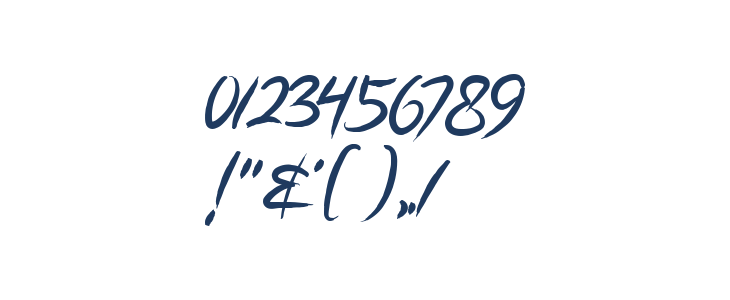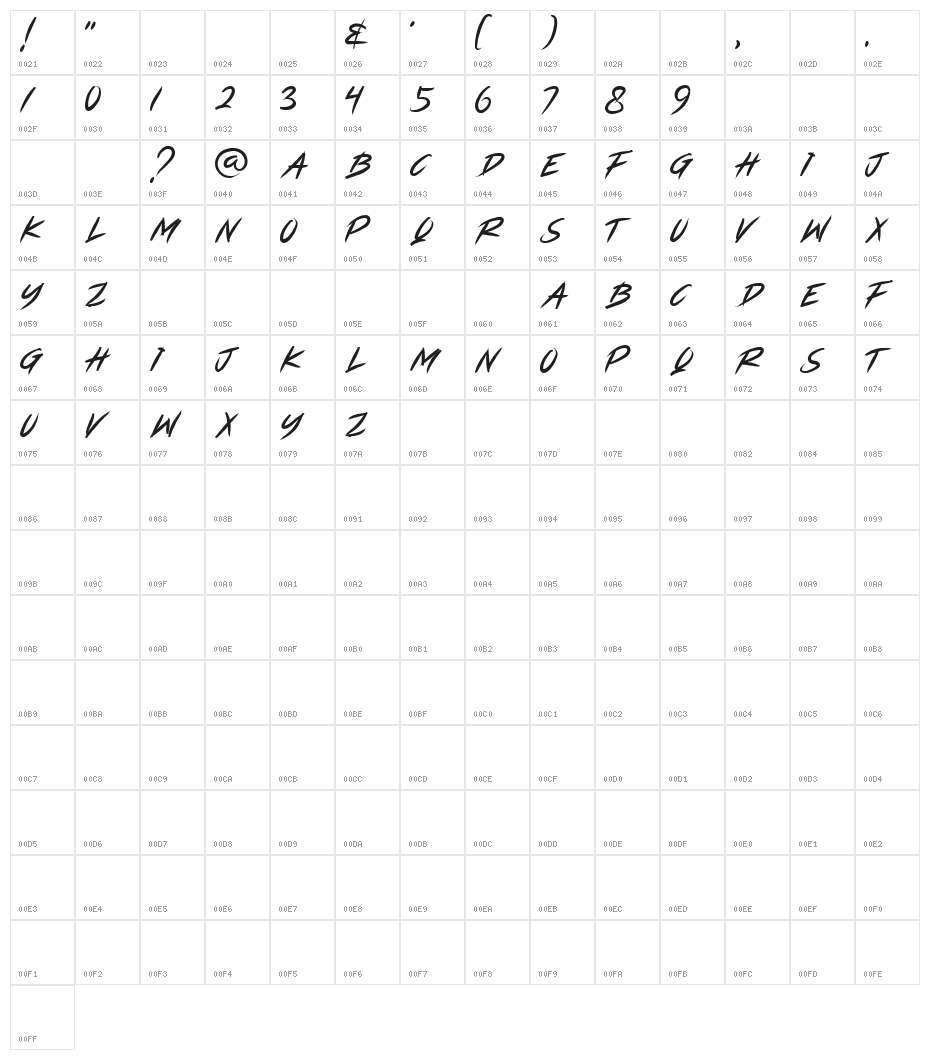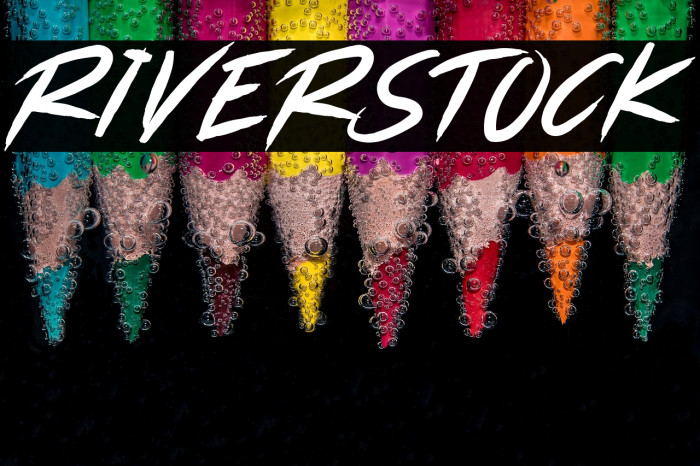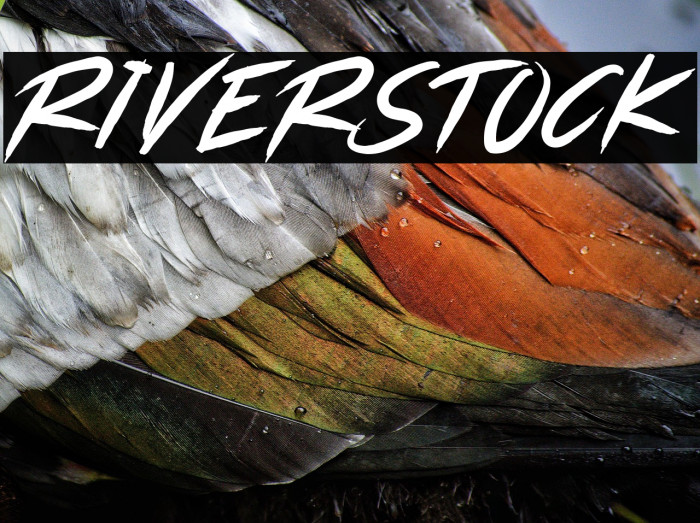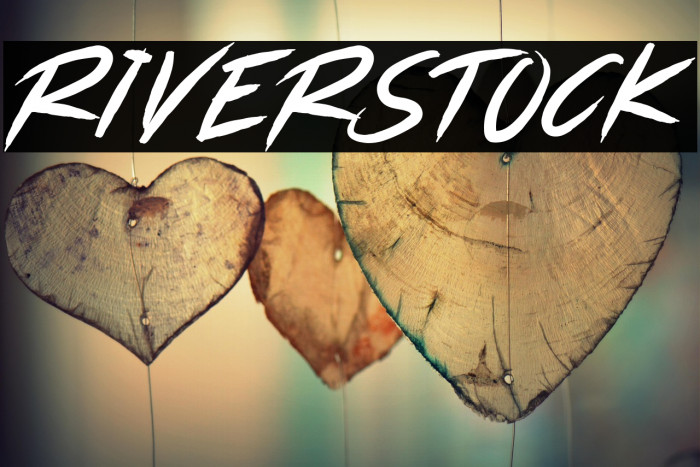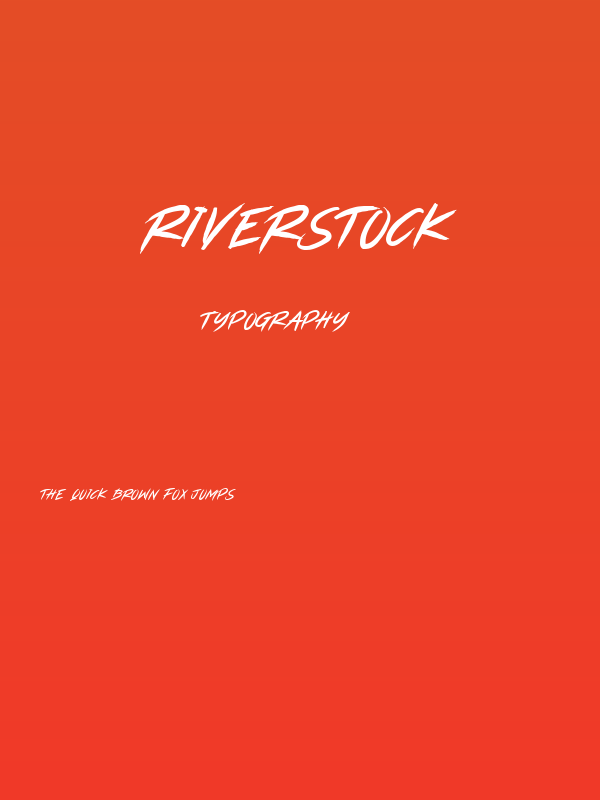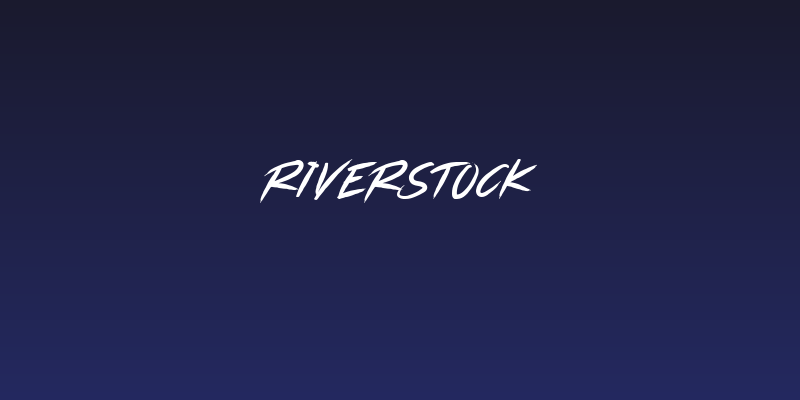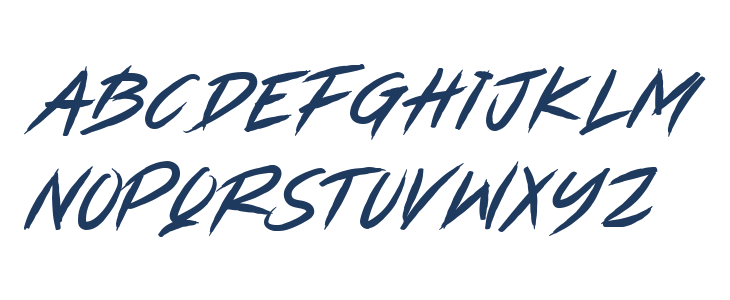
RIVERSTOCK Font
RIVERSTOCK Description
This font features a dynamic and energetic script style with bold, sweeping strokes that convey a sense of movement and flair. The characters are slightly slanted, adding to the impression of speed and fluidity. The uppercase letters are particularly striking, with exaggerated curves and sharp angles that give them a distinctive, almost aggressive appearance. The lowercase letters maintain this dynamic style, ensuring consistency across the font. The numbers and special characters are designed to match the overall aesthetic, making them suitable for a variety of uses where a bold, expressive look is desired.
| Use Case | Logos, Headlines, Posters |
| Proposed Projects | Ideal for branding, advertising, posters, and any project requiring a bold, expressive typeface. |